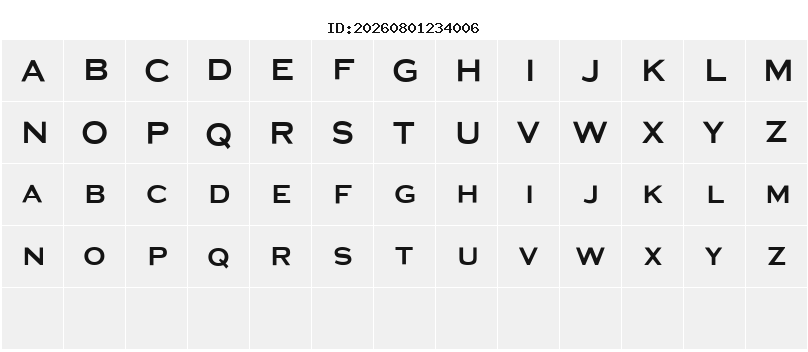
Media Gothic Preview
About Media Gothic.ttf
Media Gothic.ttf is a modern, elegant sans-serif font designed for ultimate readability and visual harmony. Perfect for branding, headlines, web design, and print materials.